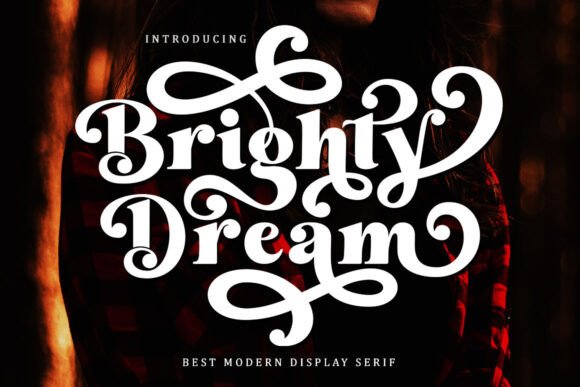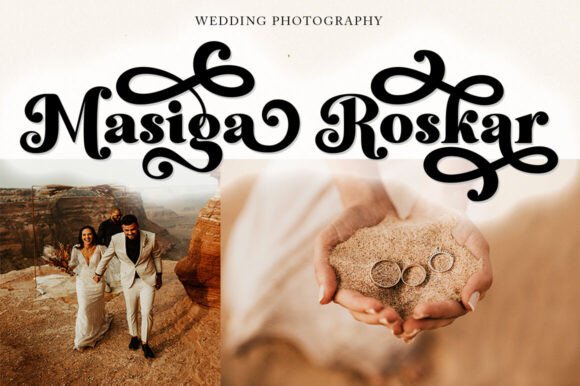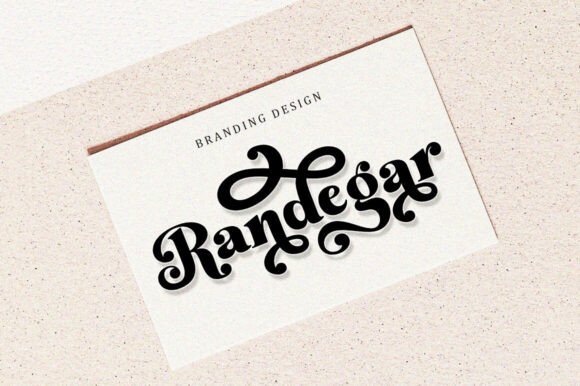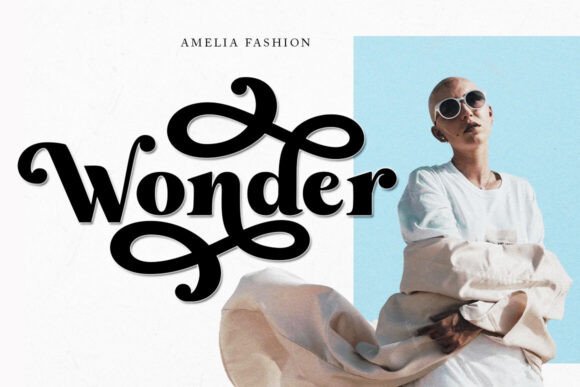
Brighty Dream Font
About the Brighty Dream Font
Meet Brighty Dream Font, a stunning font that brings a touch of elegance and professionalism to any design. Brighty Dream is a stunning serif typeface that will make your designs stand out. A great combination of regular and Condensed styles that looks great in both large and small sizes. It also comes with alternates and ligatures to give it an elegant feel while adding a playful touch. Brighty Dream font is a great choice, especially in pop art retro themes and other projects
Brighty Dream excels in headline applications, short-form text on posters, and branding elements where its playful energy can shine. Its condensed styles are particularly effective for logos and packaging design requiring a strong visual impact. However, avoid using it for body copy or extended paragraphs; its playful nature and decorative elements would hinder readability in longer text blocks. UI applications are also not ideal.
The font’s personality is bold and retro-inspired, yet retains an elegant touch thanks to the ligatures and alternates. This makes it suitable for brands targeting a youthful, vibrant audience, or projects evoking a sense of nostalgia and fun.
For optimal pairing, consider complementing Brighty Dream with a clean sans-serif like Futura for a modern contrast or a neutral serif like Garamond for a more classic feel. A script font such as Pacifico could add a whimsical touch for specific design elements, enhancing the overall playful aesthetic.